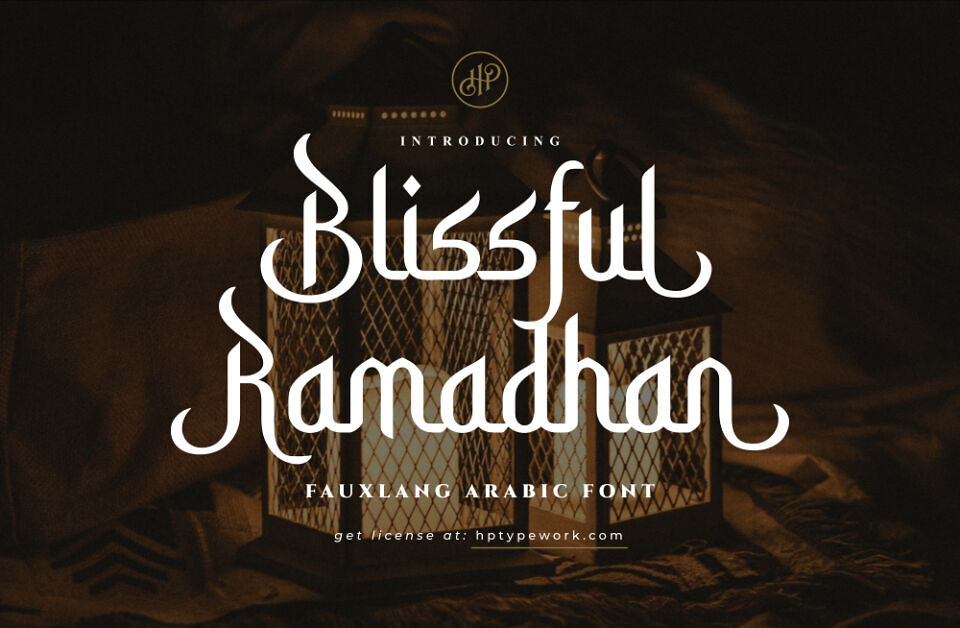
Blissful Ramadhan by HP Typework is a captivating cursive typeface inspired by Arabic calligraphy, blending traditional elegance with modern flair. Its flowing, ornate letterforms feature intricate curves and flourishes, evoking the spiritual essence of Ramadan.
Perfect for festive designs, invitations, or cultural branding, this font adds a touch of sophistication and warmth. The delicate strokes and artistic style make it ideal for creating visually stunning graphics that celebrate Islamic heritage, as showcased in the image with its lantern backdrop, available for licensing at hptypework.com.